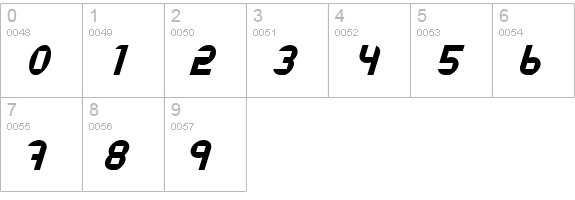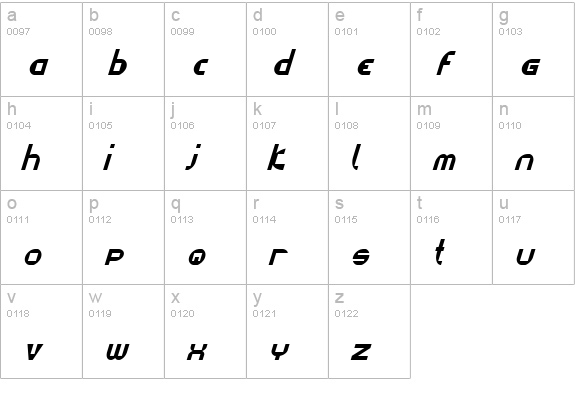
Datacut Italic Font Details
Datacut Italic is a distinctive, italic variant in the Datacut typeface family \xE2\x80\x94 well suited to design and typography projects.
Introducing Datacut Italic font - a sleek and modern typeface designed to make a bold statement in your projects. With its elegant curves and sharp edges, Datacut Italic is perfect for adding a touch of sophistication to any design. The italic style gives a sense of movement and dynamism, making your text stand out. This versatile font is ideal for a wide range of applications, from branding and marketing materials to web design and print media. Whether you're creating a logo, designing a website, or crafting a poster, Datacut Italic will elevate your work to the next level. And the best part? Datacut Italic is available for free download at FontsMarket.com. Simply head over to the website to get your hands on this stunning font and start using it in your projects today. Don't miss out on the opportunity to enhance your designs with the timeless elegance of Datacut Italic font.